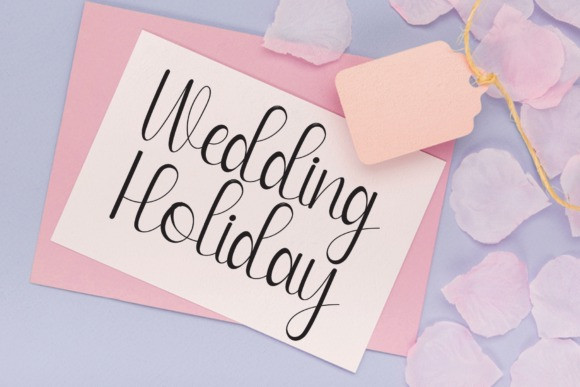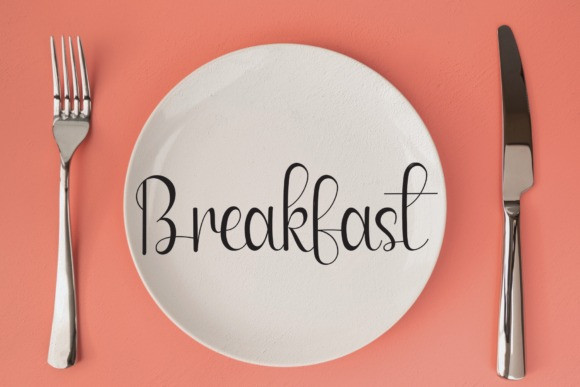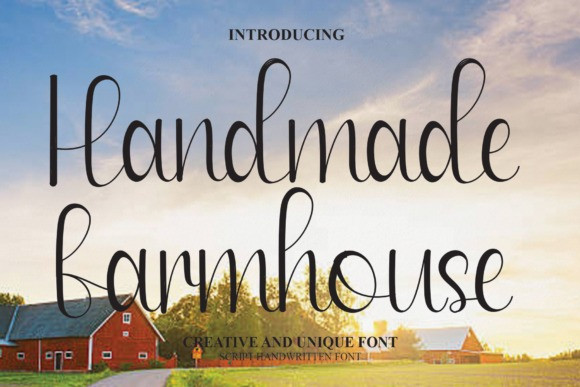
Handmade Farmhouse Typeface
Handmade Farmhouse Font is a smart and playful script font. It looks stunning on wedding invitations, thank you cards, quotes, greeting cards, logos, business cards and every other design which needs a customized touch.